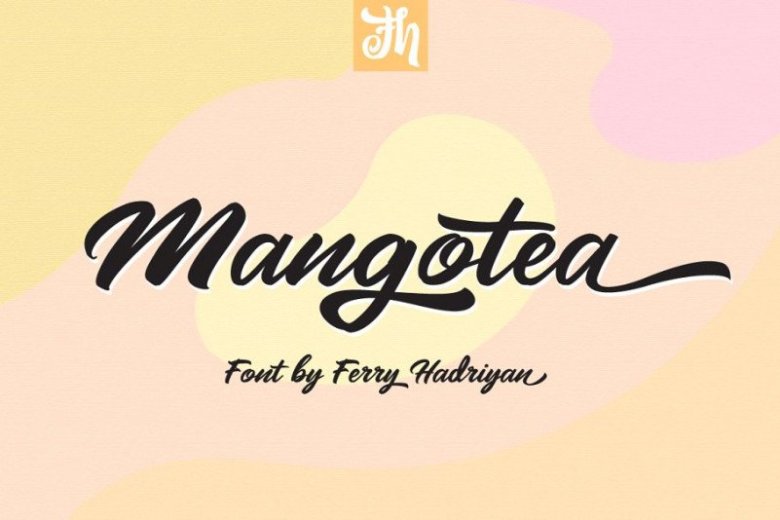
Mangotea Script Font
This a sweet bold script font made of all things lovely and sweet. It’s perfect for branding, blogs and so much more. Introducing Mangotea Font. It is designed and shared by FHFont. Mangotea Script is Bold Script Brush Font with Handlettering Brush Style, with opentype feature include of the font. Suitable for design, element design, wedding, event, t-shirt, logo, badges, sticker, and awesome work, etc…